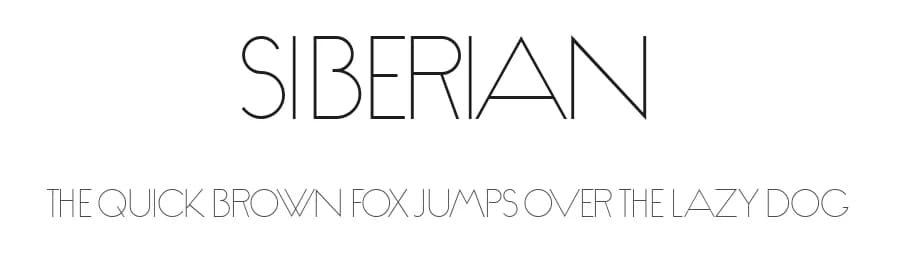
About Siberian Font
Siberian is a sans-serif font designed by Vladimir Nikolic. It includes 56 glyphs, a regular weight, TTF (TrueType) format, and 89 languages. Siberian is free to download; check the license details on this page before commercial use. Sans-serif fonts like Siberian work best for clean body text, user interfaces, branding, and modern layouts.
Siberian Font is a versatile sans-serif font that works for both headings and body text. Pair it with a contrasting serif or slab serif font to add visual interest and a clear distinction between titles and body copy.